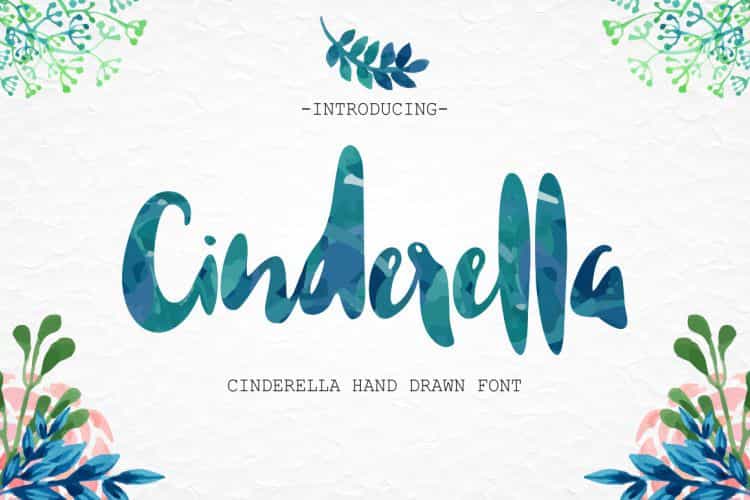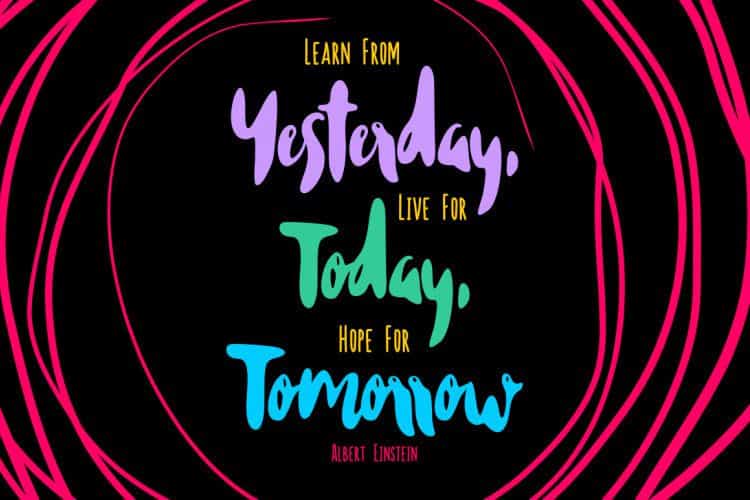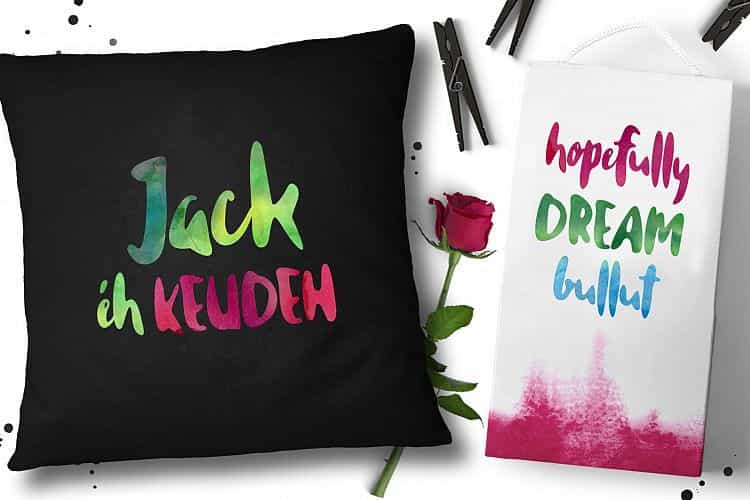
Discover Cinderella Hand Drawn Font, part of the Brush collection—a versatile and unique font perfect for adding a personal touch to your projects. Download it for free and enjoy crafting designs with style, from invitations to social media posts. This font is available exclusively for personal use, giving you the freedom to create without limits. Unlock your creativity with Cinderella Hand Drawn Font today!
Let me introduce Cinderella Hand Drawn Font. Cinderella is a typeface which looks very beautiful when it is moved by hand for all kinds of product design. This font is suitable for many different projects, It was designed to be comfortable with various types of projects such as advertising, campaigns, poster design, wedding invitations, branding and logos which include fashion magazines.